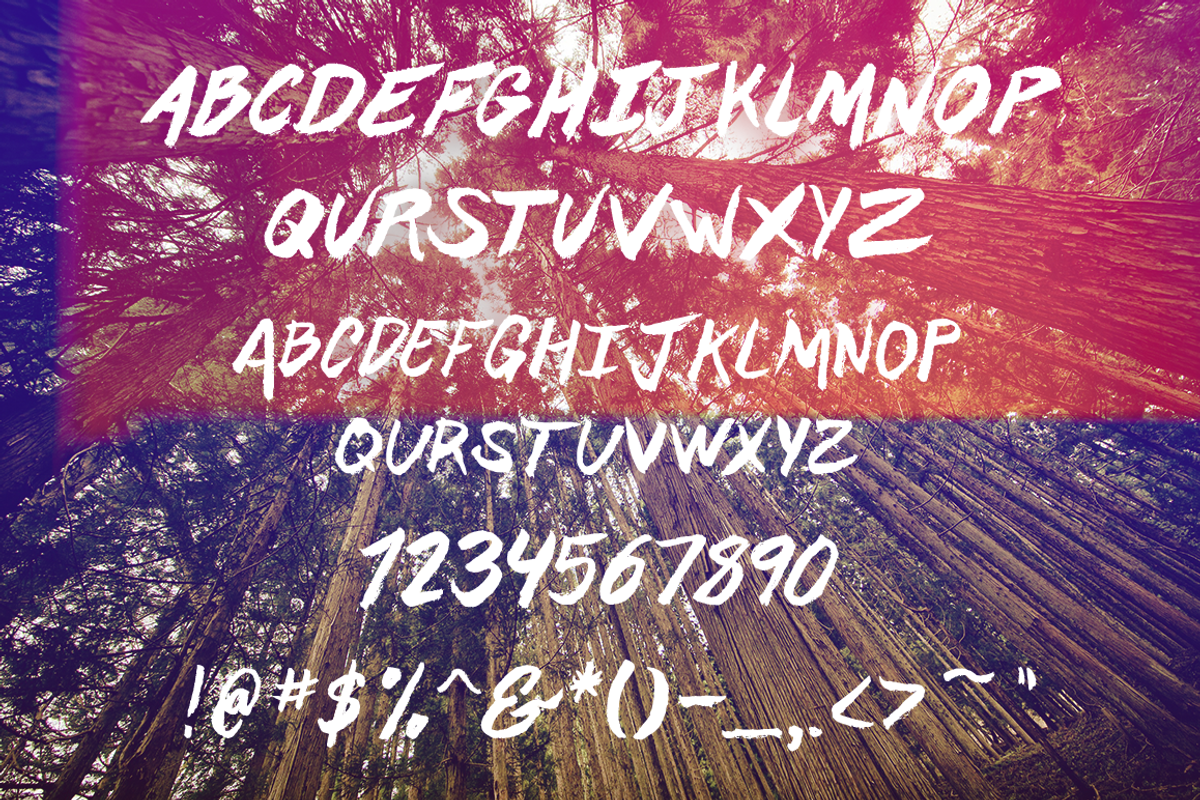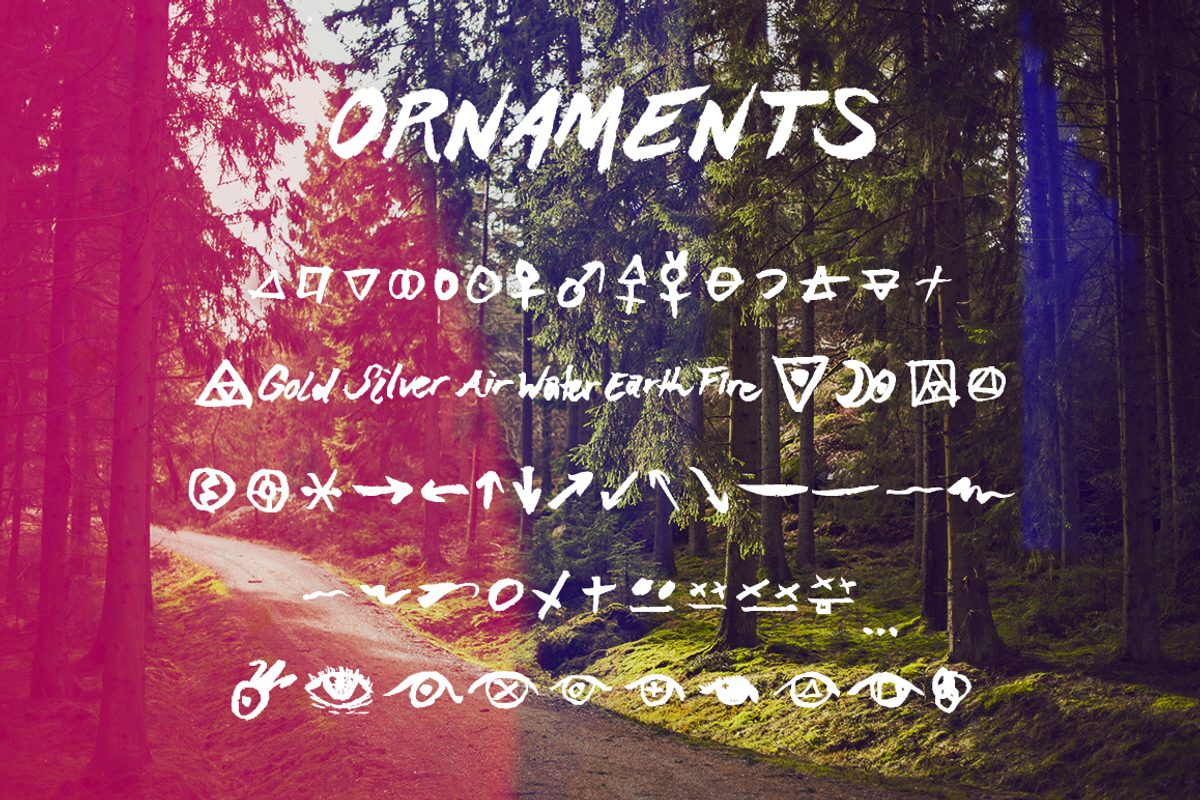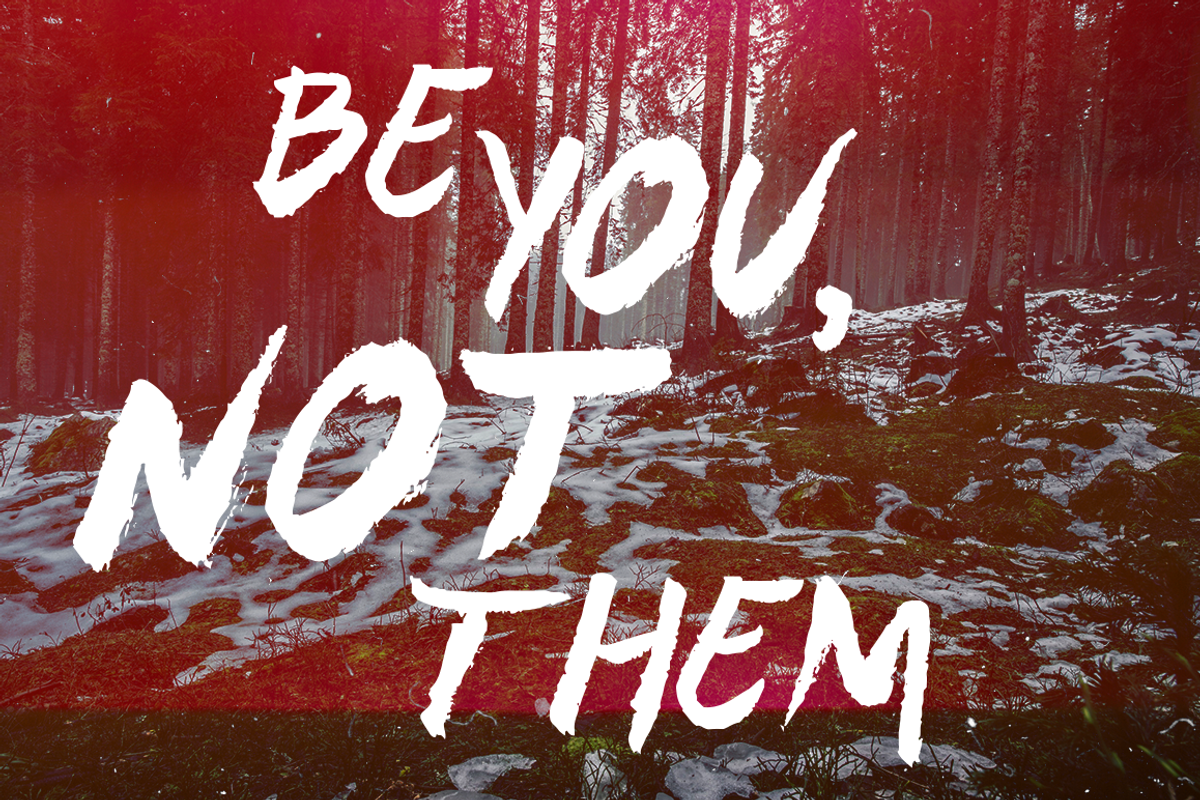
Marsh Hand Drawn Brush Font + Bonus
Marsh Hand Drawn Brush Font + Bonus by N A T H A N T H O M S O N is a font selected for branding, posters, packaging, typography.
- Also included is another font of just symbols and other glyphs which are based on alchemical symbols or just scribbles.
- Marsh Regular
- Marsh Ornamental
Marsh Hand Drawn Brush Font + Bonus by N A T H A N T H O M S O N fits naturally into Branding, posters, packaging, typography.